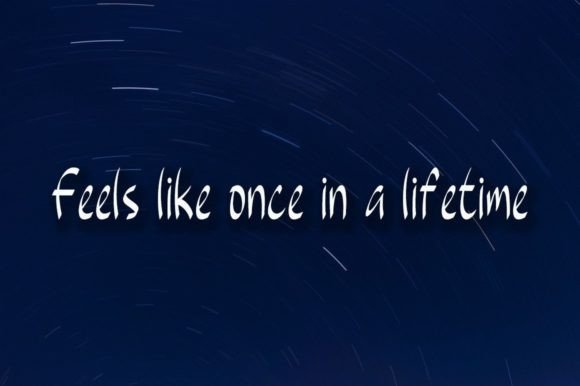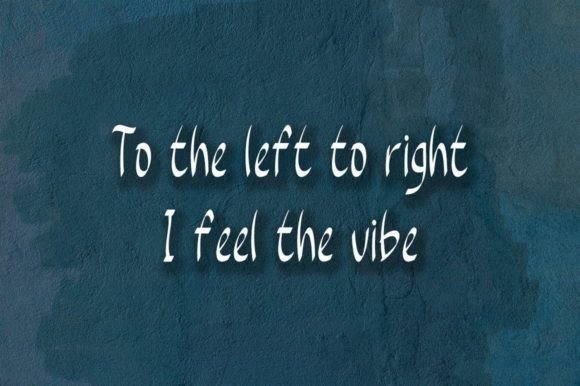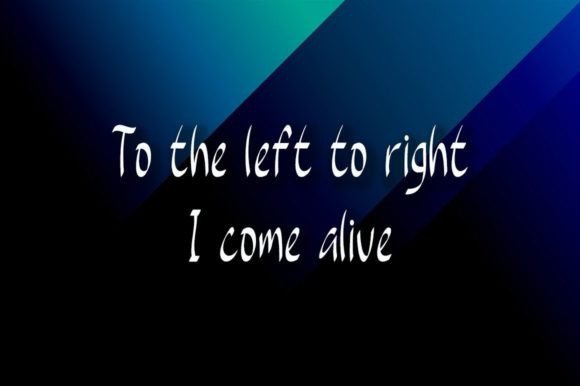
Bamboleo Font: Adding a Touch of Whimsy to Your Designs
In the world of typography, fonts play a crucial role in conveying the tone and personality of a brand or project. If you’re looking for a font that can add a dash of quirkiness and personality to your designs, look no further than Bamboleo Font. This handwritten font is perfect for a wide range of applications, from websites and SVG designs to home decor, branding, blogs, logos, invitations, and more.
Handwritten fonts have a unique charm that can instantly elevate the aesthetic appeal of any project. They bring a touch of human touch and personality to the text, making it more relatable and engaging. Bamboleo Font is no exception. With its quirky and natural handwriting style, this font can add a dash of whimsy to any design, making it perfect for creative projects that require a personal touch.
Characteristics of Bamboleo Font
Bamboleo Font is a carefully crafted handwritten font that boasts a range of characteristics that make it perfect for a wide range of applications. Some of its key features include:
- Quirky and natural handwriting style: Bamboleo Font has a unique, handwriting style that is both quirky and natural, making it perfect for projects that require a personal touch.
- Instantly recognizable: The font’s natural handwriting style makes it instantly recognizable, adding a touch of personality to any project.
- Highly versatile: Bamboleo Font is highly versatile and can be used for a wide range of applications, from websites and SVG designs to home decor, branding, blogs, logos, invitations, and more.
Uses of Bamboleo Font
Bamboleo Font is a highly versatile font that can be used for a wide range of applications. Here are some of the ways you can use this font to elevate your designs:
- Websites: Add a touch of personality to your website with Bamboleo Font. Its quirky handwriting style makes it perfect for website headers, titles, and descriptions.
- SVG designs: Bamboleo Font is perfect for SVG designs, including cutting files, iron-on designs, and more.
- Home decor: Use Bamboleo Font to add a personal touch to your home decor projects, including wall art, signs, and more.
- Branding: Bamboleo Font is perfect for branding projects, including logos, business cards, and more.
- Blogs: Add a touch of personality to your blog with Bamboleo Font. Its quirky handwriting style makes it perfect for blog titles, headers, and descriptions.
- Logos: Use Bamboleo Font to create unique and memorable logos that reflect the personality of your brand.
- Invitations: Bamboleo Font is perfect for invitations, including wedding invitations, birthday invitations, and more.
Why Choose Bamboleo Font?
So why choose Bamboleo Font for your next project? Here are just a few reasons why this font stands out:
- Unique and quirky: Bamboleo Font has a unique and quirky handwriting style that is sure to make your project stand out.
- Highly versatile: This font is highly versatile and can be used for a wide range of applications.
- Easy to read: Despite its quirky style, Bamboleo Font is easy to read, making it perfect for projects that require a personal touch.
| Font Name | Bamboleo Font |
| Author | morningtimestudio |
In conclusion, Bamboleo Font is a quirky handwritten font that can add a touch of whimsy to any design. With its natural handwriting style and highly versatile design, this font is perfect for a wide range of applications, from websites and SVG designs to home decor, branding, blogs, logos, invitations, and more. Whether you’re a designer, crafter, or DIY enthusiast, Bamboleo Font is a great choice for any project that requires a personal touch.